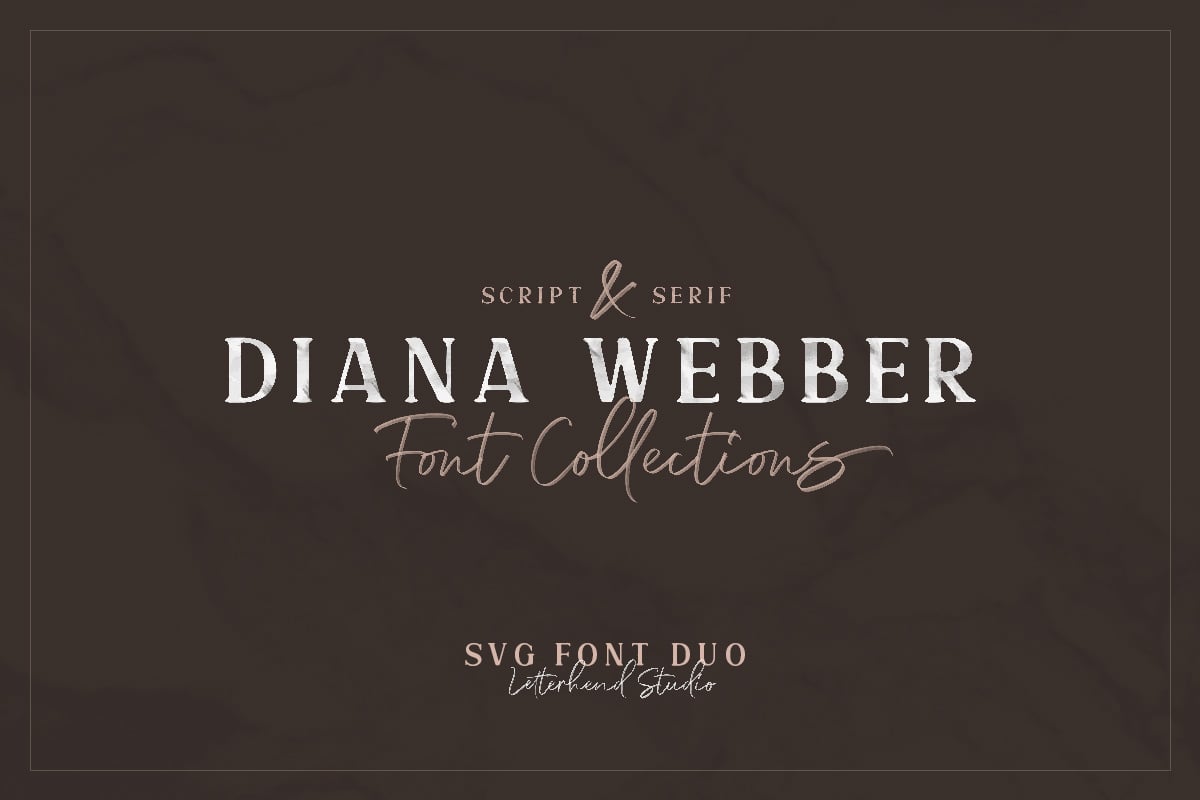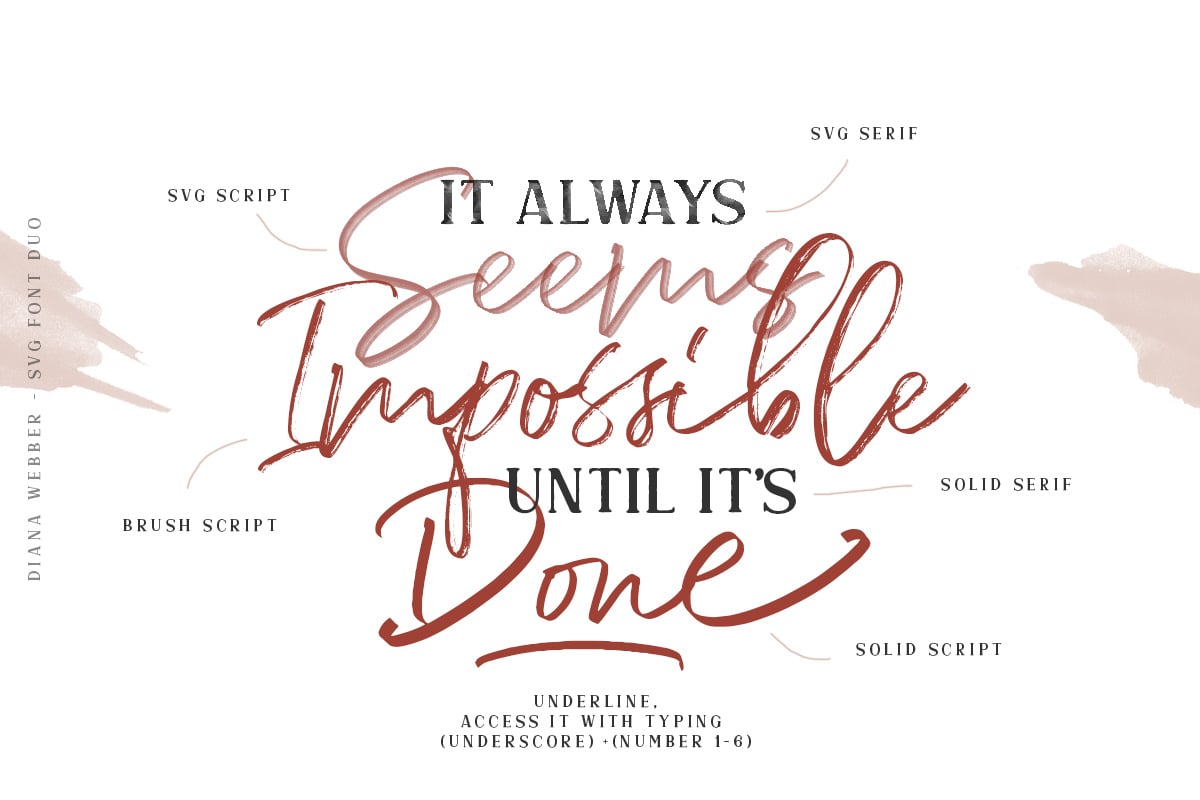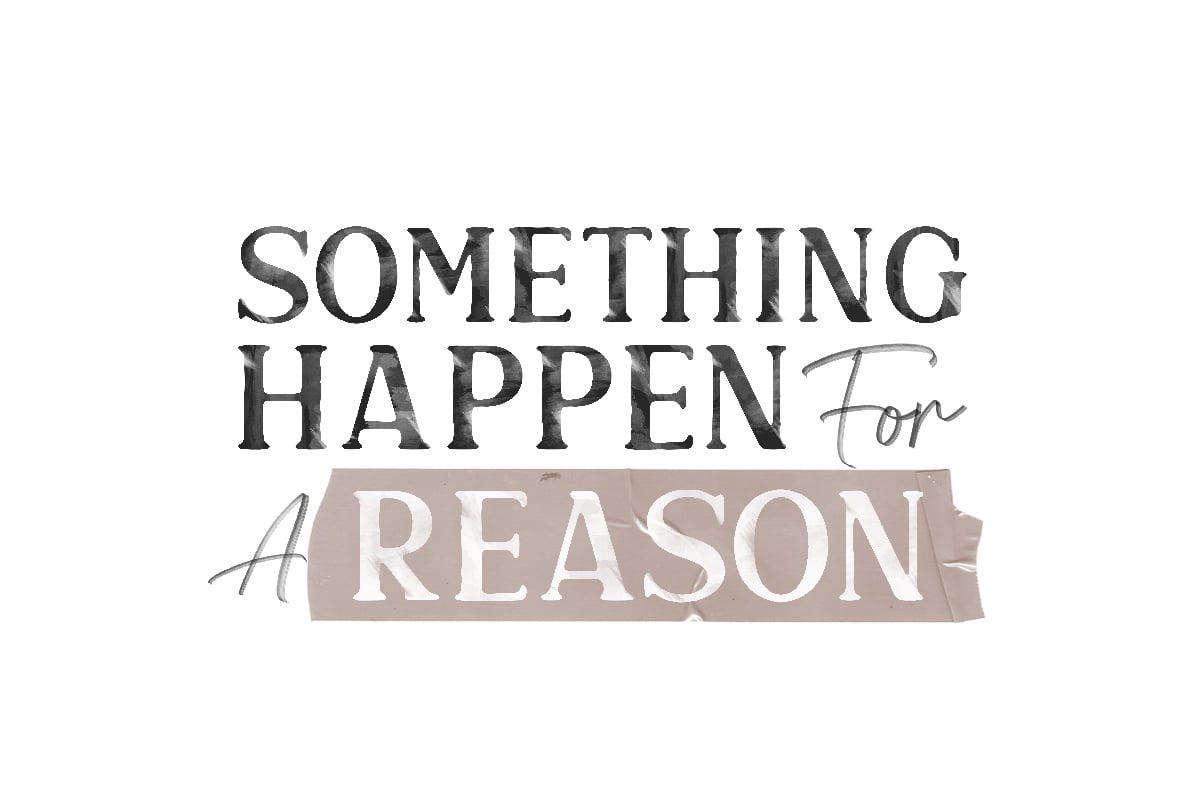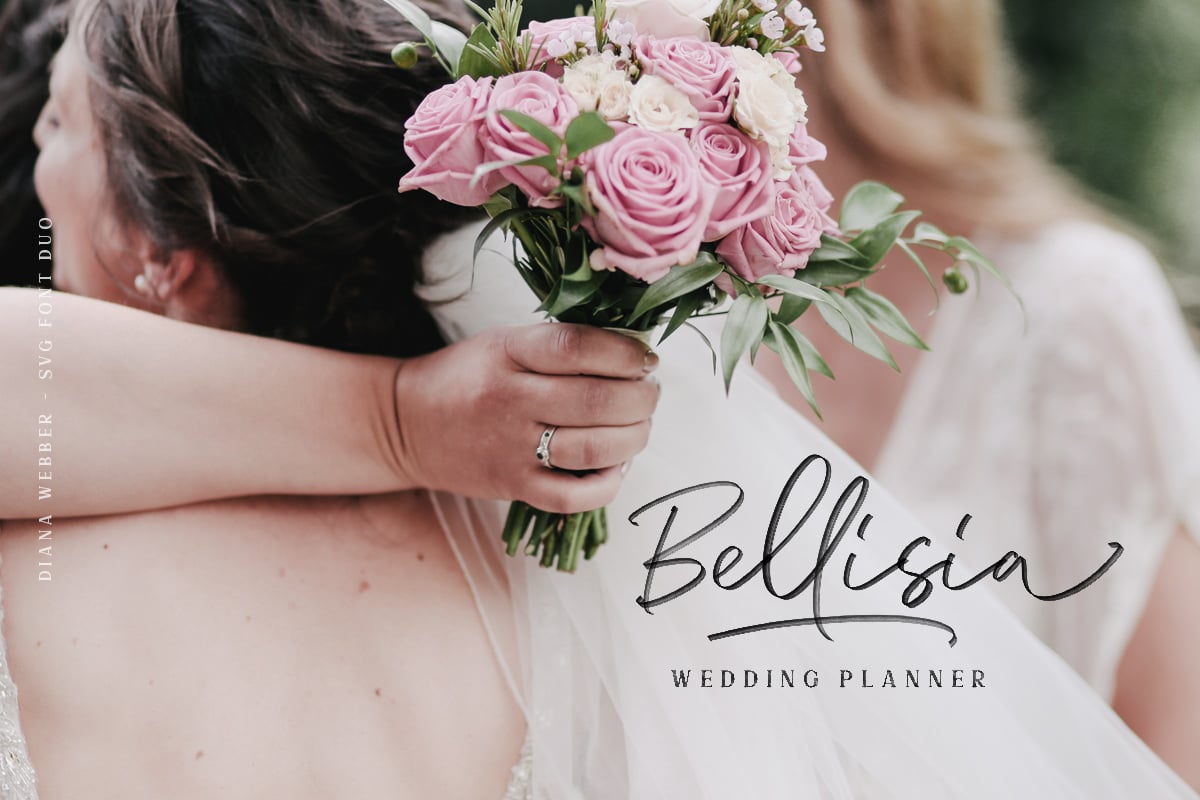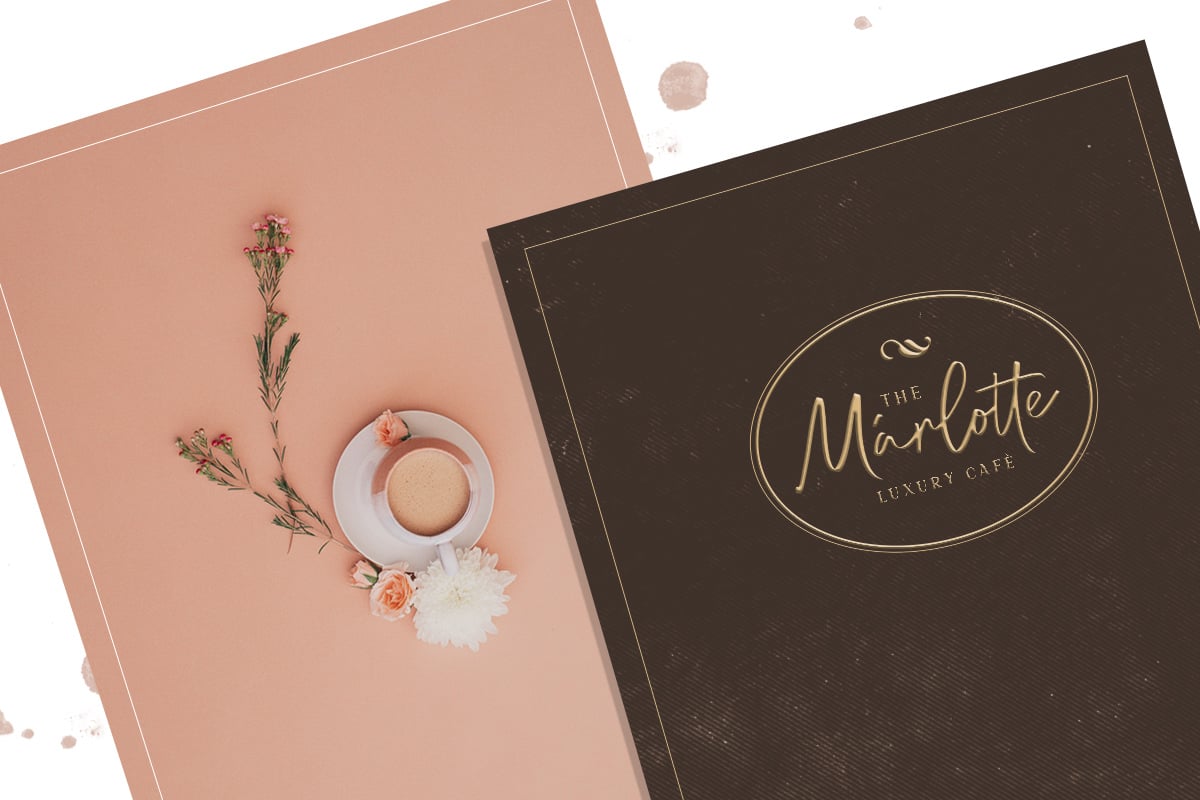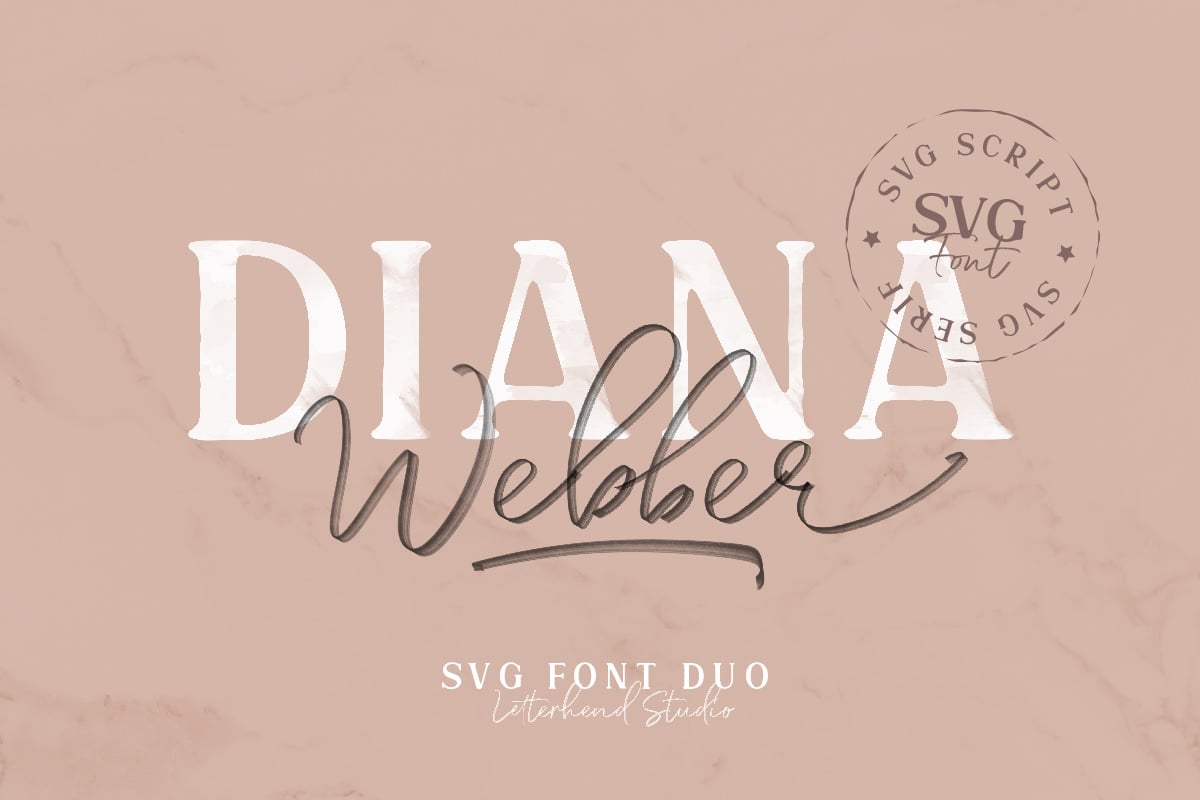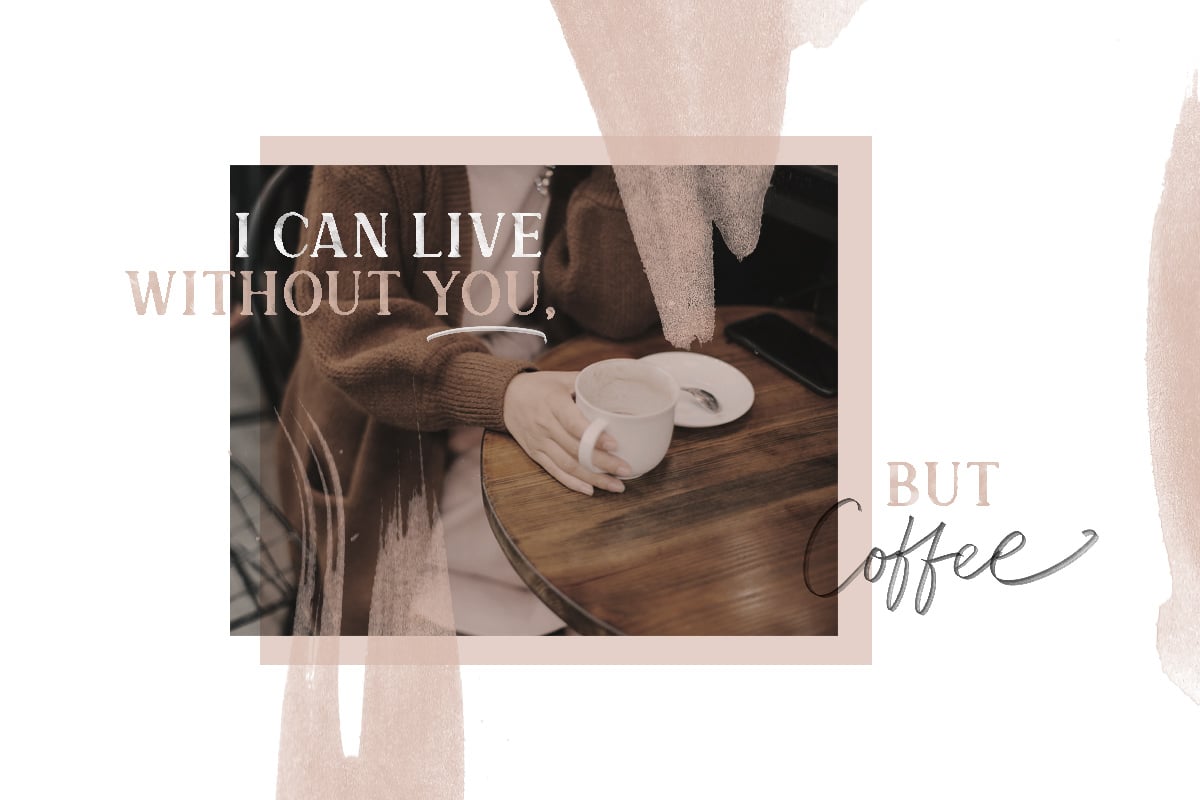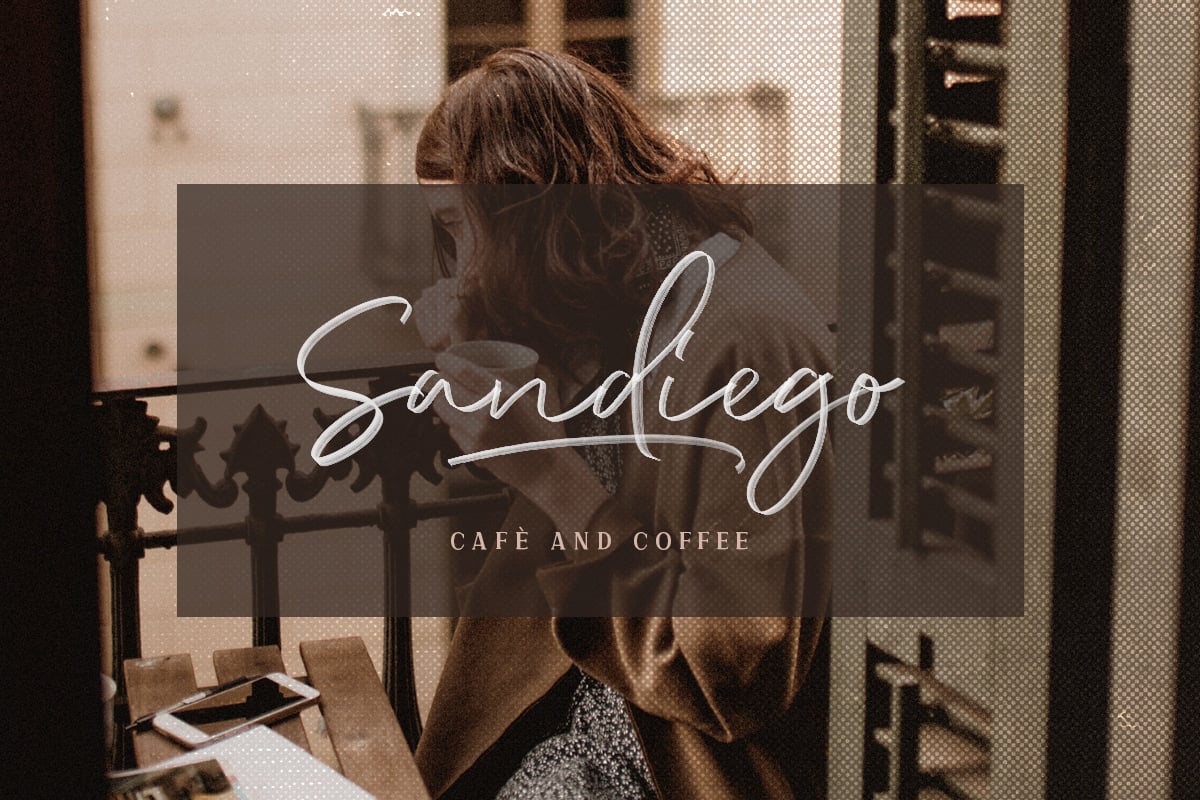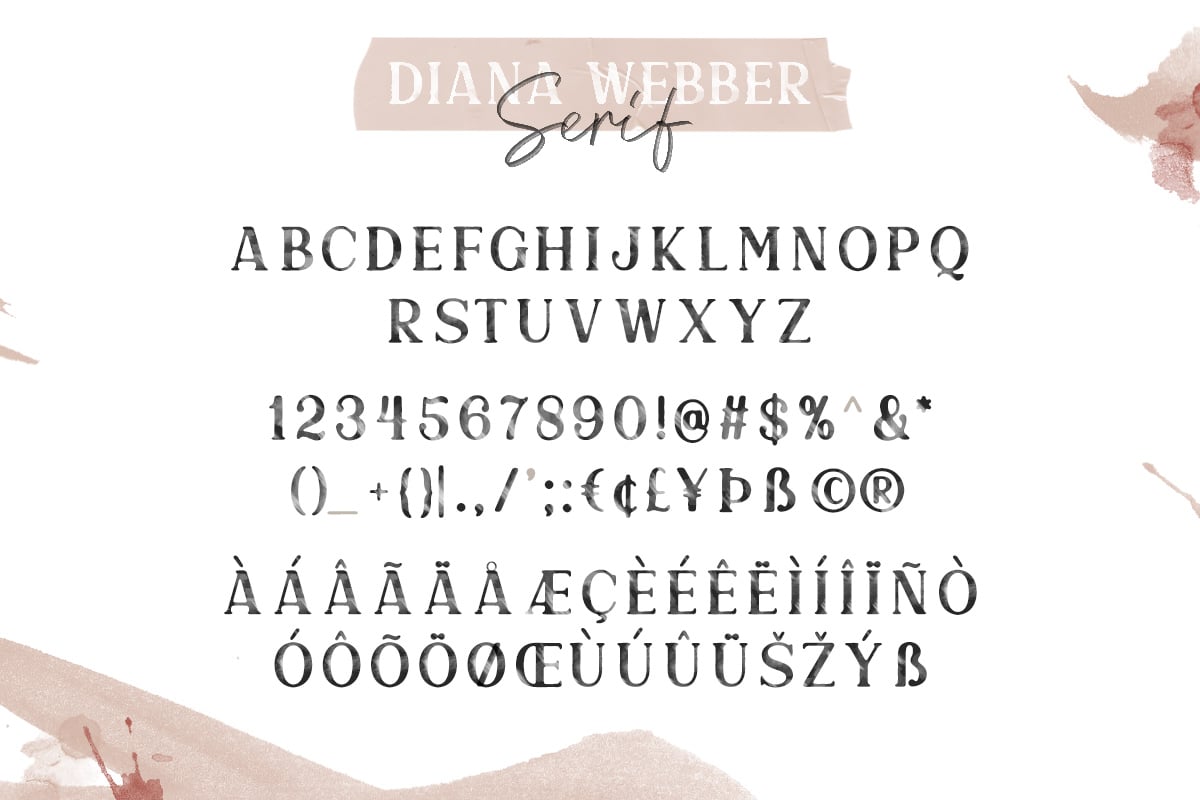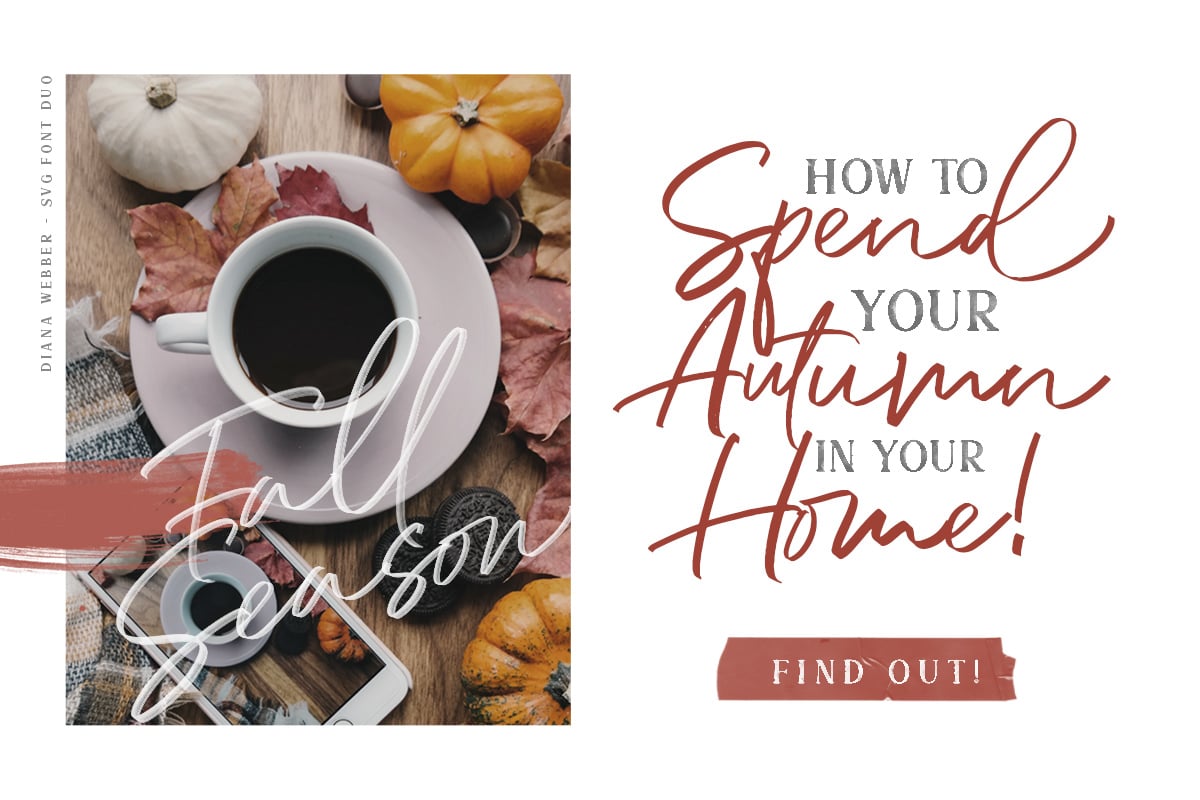
Diana Webber – SVG Font Duo
Introducing, Diana Webber SVG Font Duo.
Diana Webber is a A Display Typeface Family which has two font that is a SVG script and SVG Serif! What a perfect pair. The texture make it looks like a natural hand writing. Very suitable for you who needs a typeface for headline, logotype, apparel, invitation, branding, packaging, advertising etc. This typeface is comes in uppercase, lowercase, punctuations, symbols & numerals, stylistic set alternate, ligatures, etc also support multilingual and already PUA encoded.